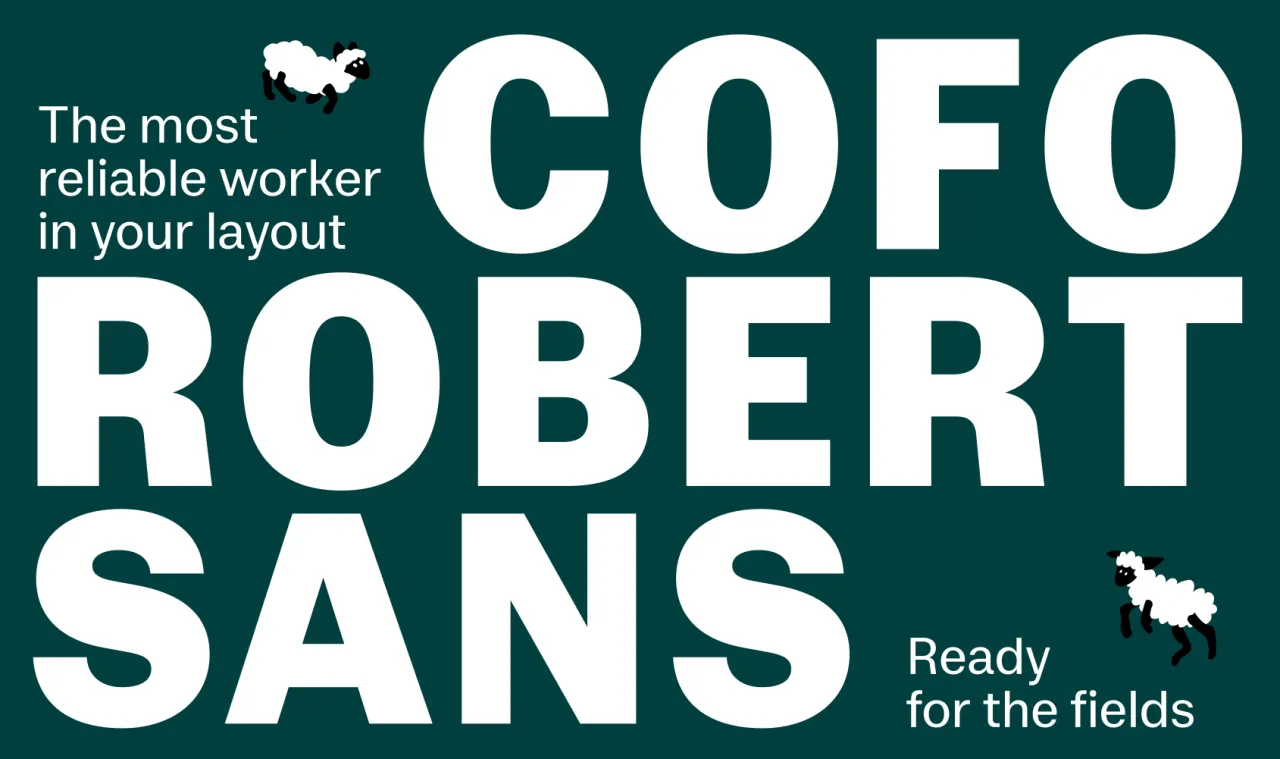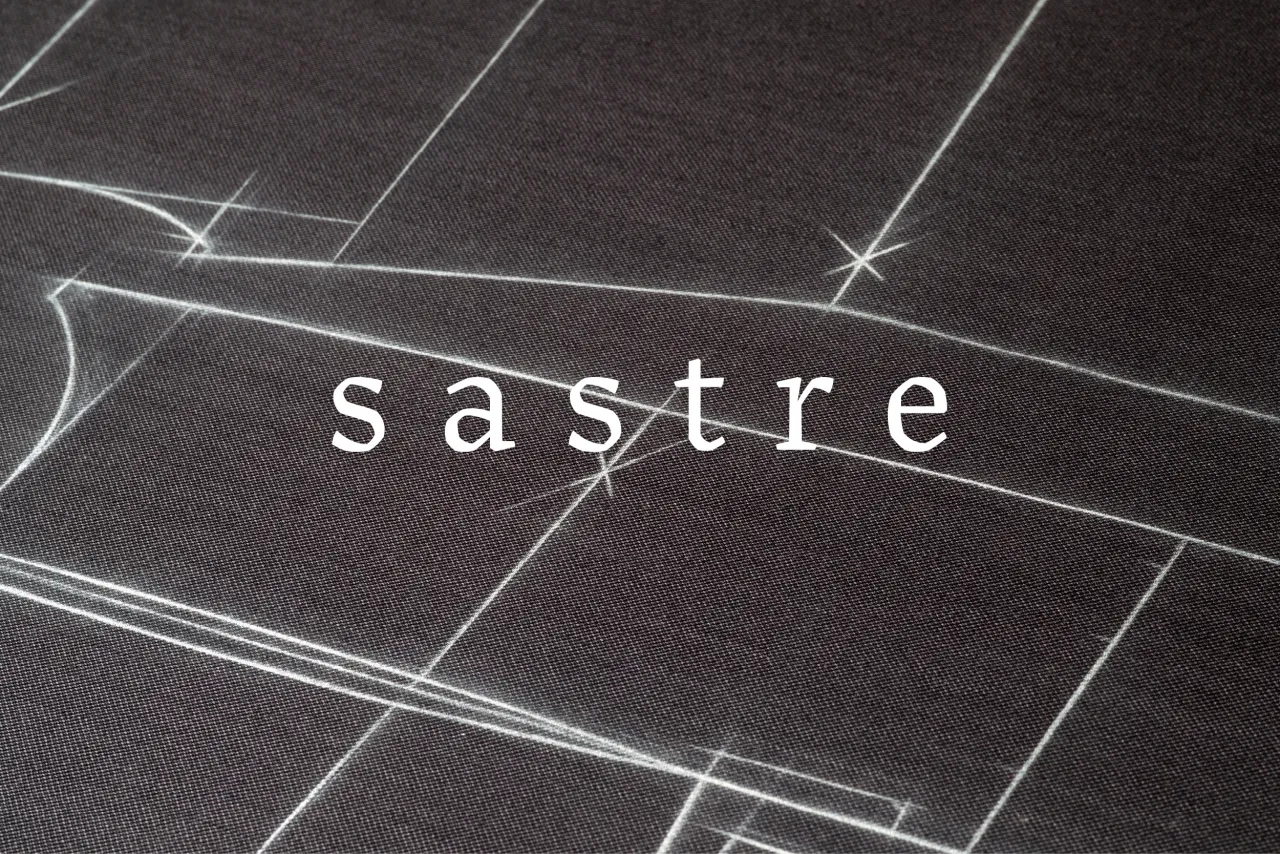
The best new typefaces for July 2026
The sun is shining, the type industry is buzzing, and the latest fonts are by no means playing it safe. We check out the most interesting releases of July 2026.
In mainstream journalism, July and August are often called the "silly season" because, without Parliament sitting, there's not much serious news to report. But the world of typography couldn't be more different, with new developments continuing apace despite the heat of the moment.
NaN, the foundry behind custom fonts for Deezer, Wise and Channel 4, has launched fonts.xyz a new platform for independent foundries and designers offering an 80% royalty cut, a unified all-inclusive licence, an 80% student discount, and a 1% solidarity tax. It's a direct challenge to the platform monopolies that have shaped font retail for years, and well worth keeping an eye on.
Meanwhile, creative studio Koto has launched CCType, its own type foundry, with a single debut release: CC Timeline. Rather than dropping a catalogue, Koto has done one thing properly. Its stated mission (boutique craft at scale, typefaces built for the realities of modern brand systems) is a clear-eyed response to how rapidly the landscape is changing under the pressure of AI-generated assets.
It's a rich month for individual font releases, too. Max Phillips returns from Dublin with another idiosyncratic gem. Mark Caneso releases his warmest typeface yet. A Galician designer finally publishes a project she started at Reading University eleven years ago. And a Brooklyn-based designer gives away a free typeface as a love letter to a neighbourhood. Read on to learn about these new fonts and more.
1. Solaflare by John Roshell
Solaflare's mood is both unmistakable and timely, evoking warm evenings, hand-painted shop signs, and the particular quality of light in a California coastal town. John Roshell of Swell Type was inspired by the hand-painted signage of Santa Barbara, but rather than simply reviving that aesthetic, he built a variable font around it; one that lets designers slide between three distinct typographic personalities within a single file.
At one end of the axis sits Sans: clean, geometric, decisive. At the other is Serif: bold and sharp, with the confident weight of display type that knows it has something to say. Between them is Flare, which captures the quality that makes hand-painted signage so appealing: that gentle widening of strokes at their terminals, as if the brush held on just a moment longer.
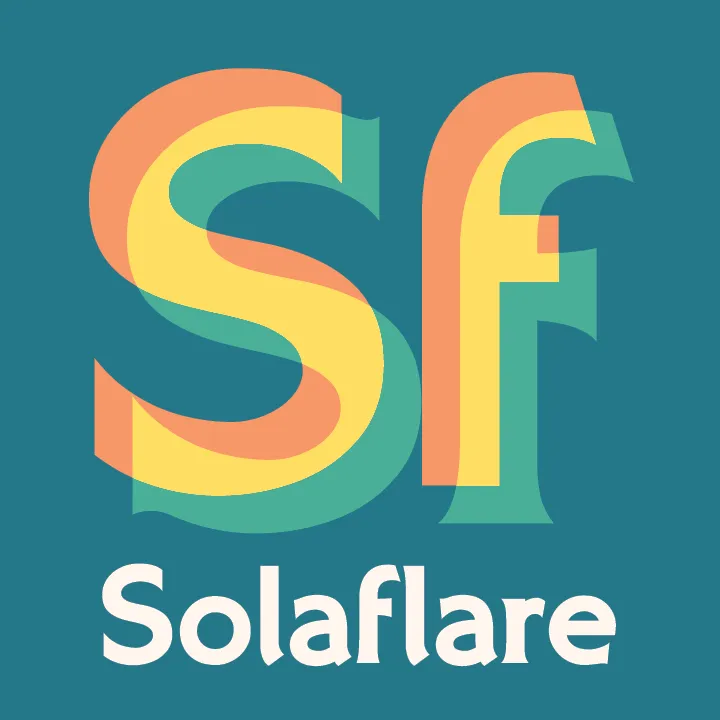
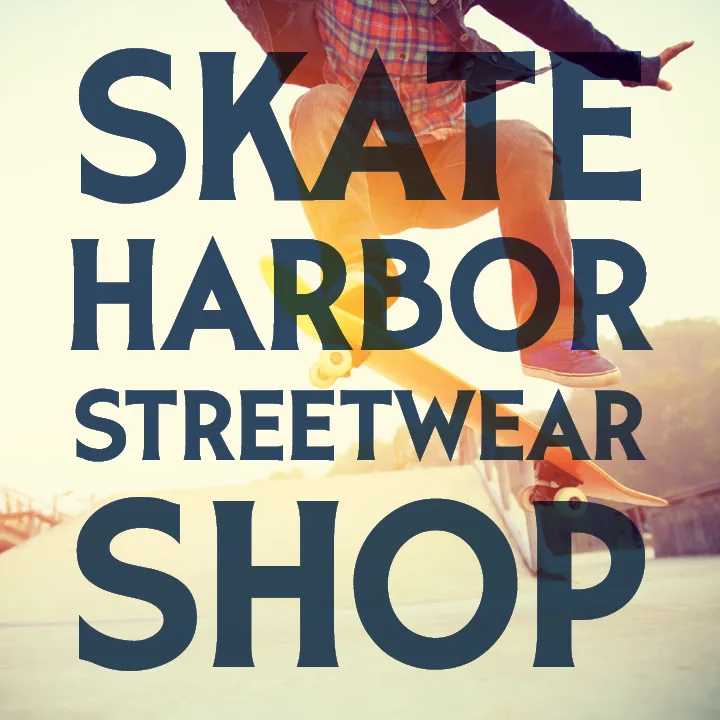
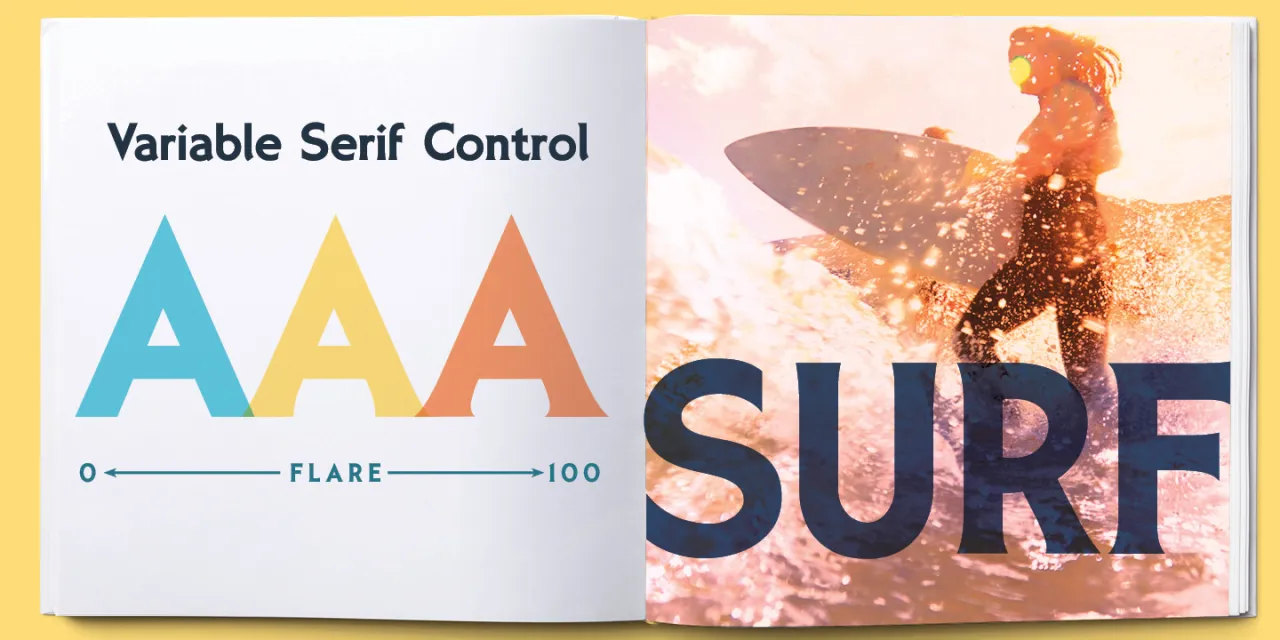
2. Cajueira by Sofia Mohr
We featured Sofia Mohr's Autêntica Sans back in April, and she returns this month with an even more ambitious project. Cajueira takes the Brazilian cashew tree ("caju" for the fruit, "-eira" for a place of becoming), not as a visual reference but as a conceptual framework. This typeface is about growth, expansion, and maturation, and how that process changes form over time.
There are 18 styles from Thin to UltraBlack, across Normal and Display versions, plus two variable fonts. As the weights increase, counters tighten, curves expand, and the typeface shifts from clarity toward expression, each weight represents a stage in development rather than simply an increase in thickness. The project was recently selected for the 10th Bienal Tipos Latinos, one of the most important showcases of contemporary Latin American typography, which suggests the broader field has noticed what we noticed in April: Sofia Mohr is producing some of the most thoughtful and original type design currently emerging from Brazil.
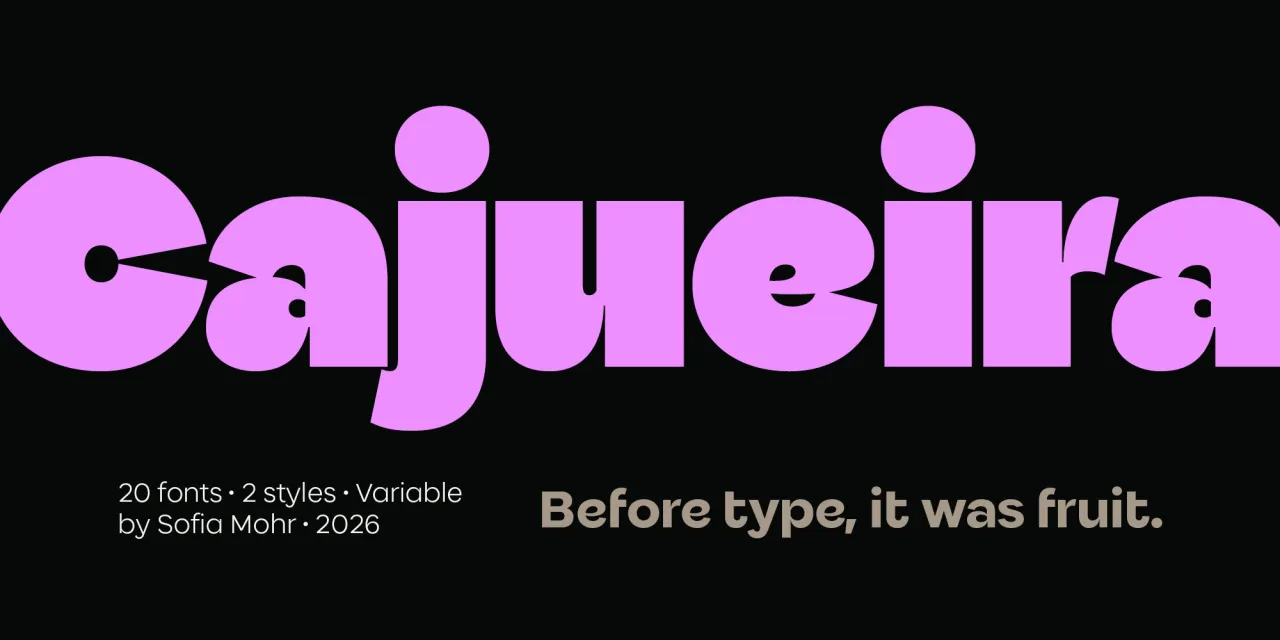
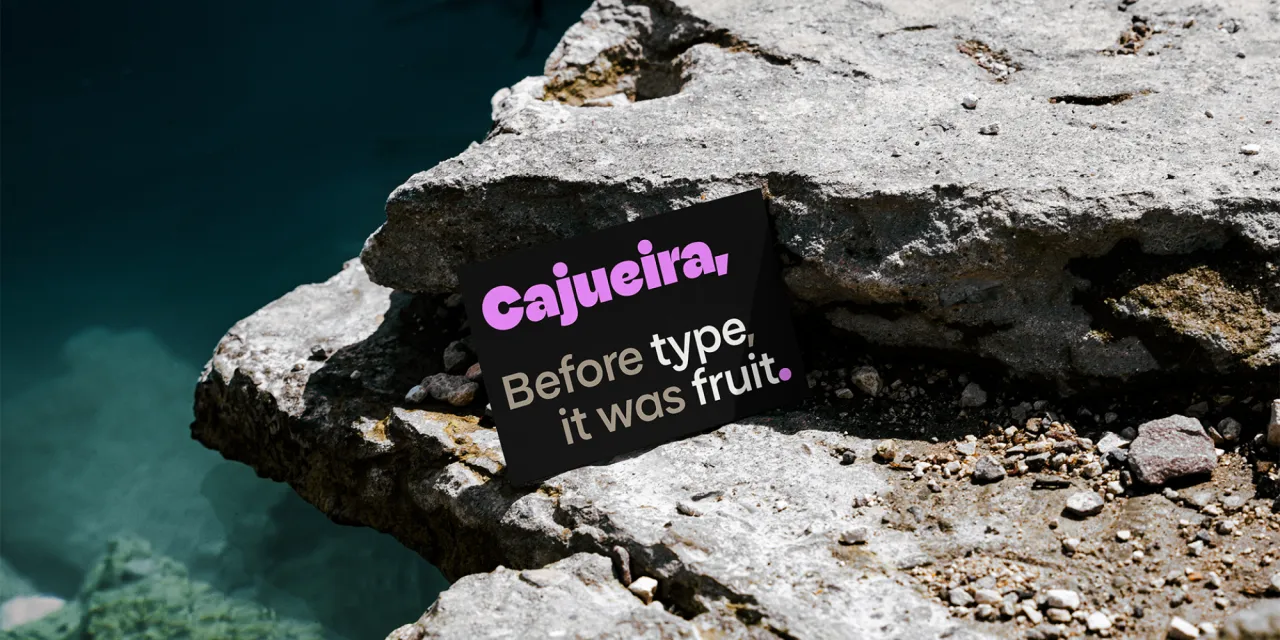
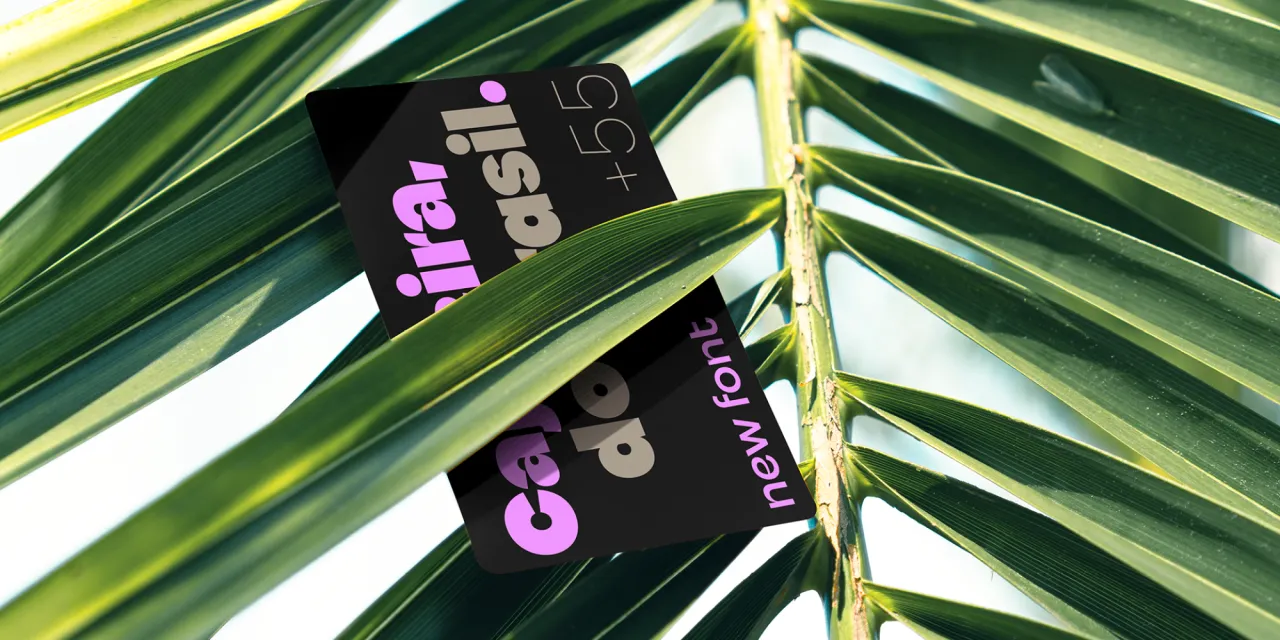
3. Detail by Mark Caneso
Mark Caneso's Please, from earlier this year, was a typeface that got "delightfully strange" at heavier weights. Detail takes a different approach entirely: it has character you can get away with. Eight weights with matching italics and two variable fonts, all wrapped in a rounded sans idiom that feels warm and familiar at first glance… until you look closer.
The personality is in the deviations. A slight bend here, a small tilt there. These carefully placed departures from convention add what Caneso calls "flavour to the familiar," creating moments of distinction within an otherwise dependable system.
Stylistic sets and alternate forms reveal further layers: designers can shift the tone toward restraint or expression without losing the typeface's consistent voice. The overall effect is of a typeface with, as Caneso puts it, "a smirk hidden beneath its composed contours."
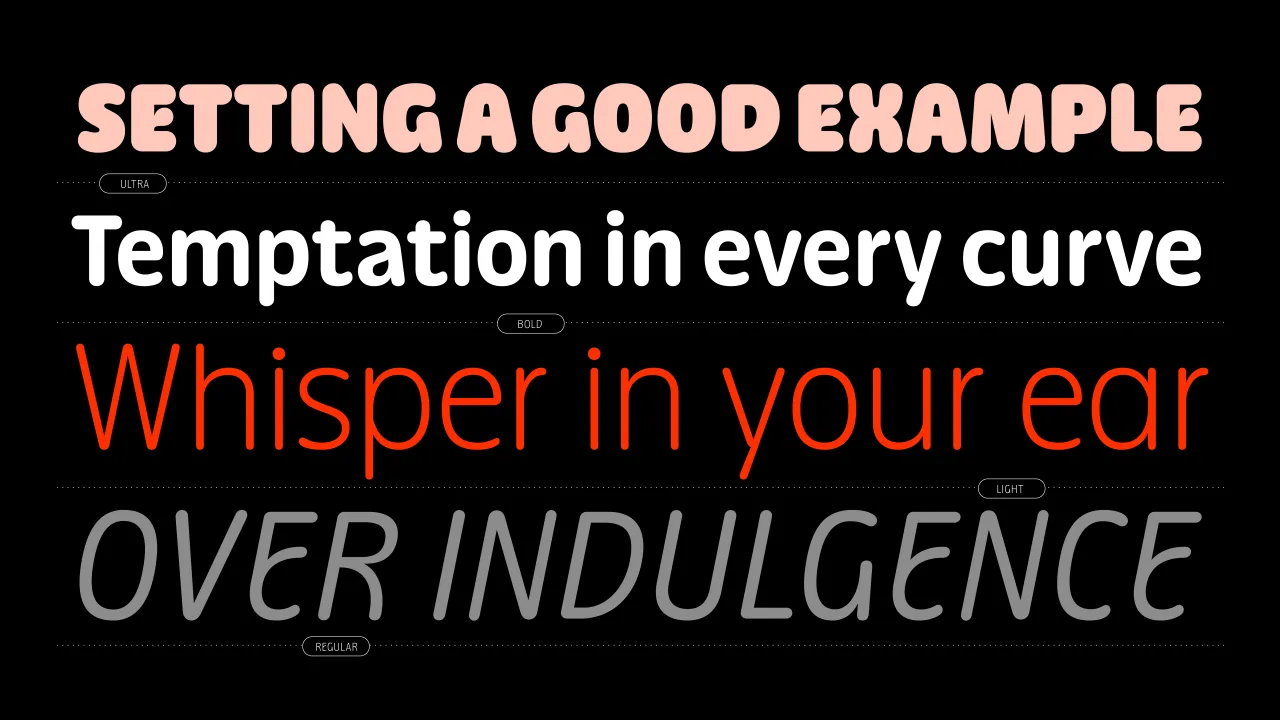
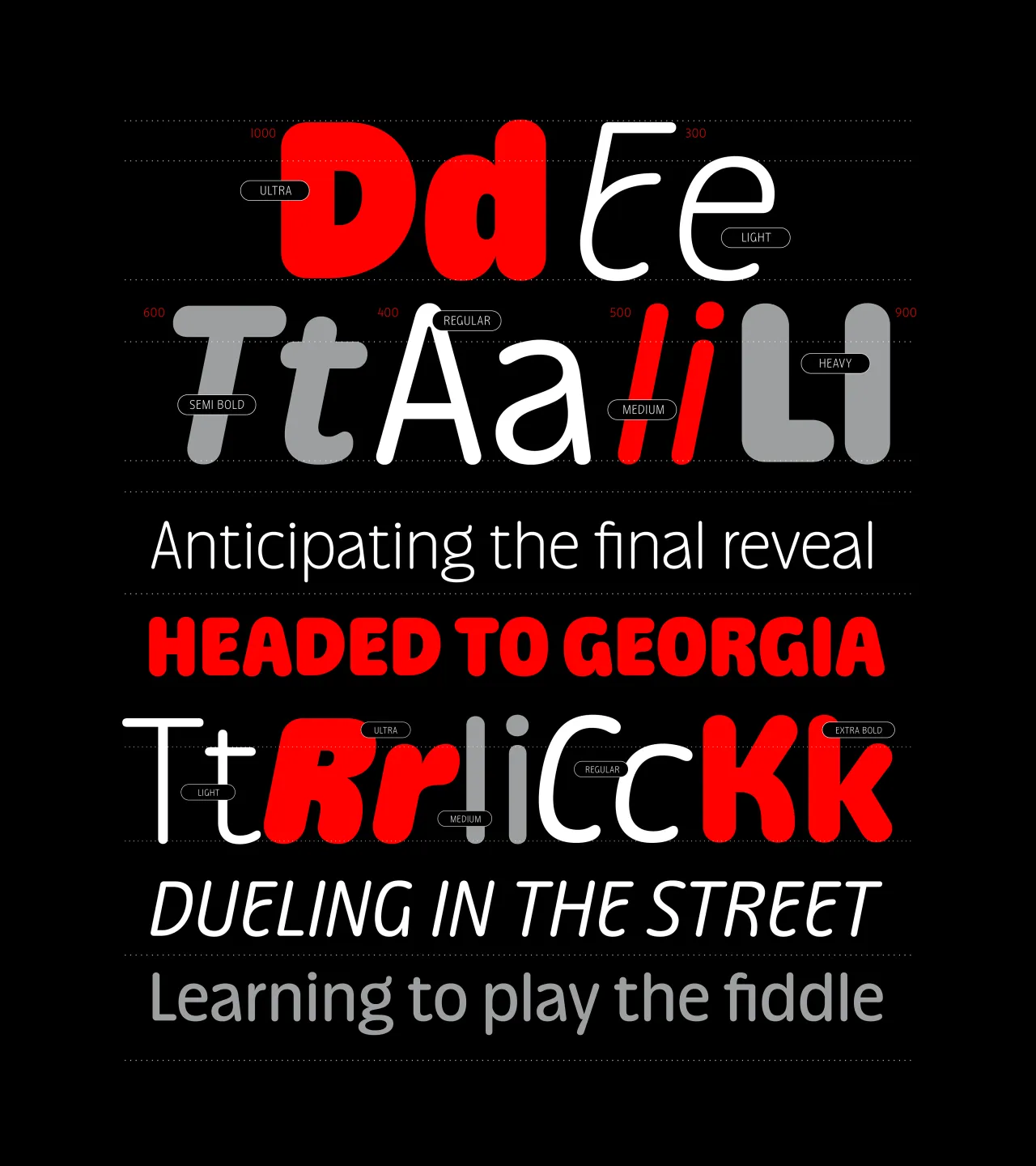
4. CoFo Robert Sans by Liza Rasskazova
Most sans serifs appeal to rationality: clean, neutral, mechanical. CoFo Robert Sans makes a different argument: what if a daily grotesque was built not from geometric abstraction, but from the warm proportions of a slab serif? Liza Rasskazova's design for Contrast Foundry takes CoFo Robert, the foundry's bestselling Clarendon-inspired slab that has been in the library since 2014, and uses it as a structural foundation, translating those traditional, calligraphically grounded proportions into a modern, clean grotesque with a human touch.
More broadly, Koto's decision to launch CCType with a single typeface rather than a ready-made catalogue is a considered one, and CC Timeline justifies the confidence it required. Dylan Young, senior type designer at Koto, describes it as designed to move across a huge emotional range: rigorous when it needs to be, loud when it needs to be, functional in product environments, expressive in campaigns. That breadth is the explicit ambition, and the execution backs it up.